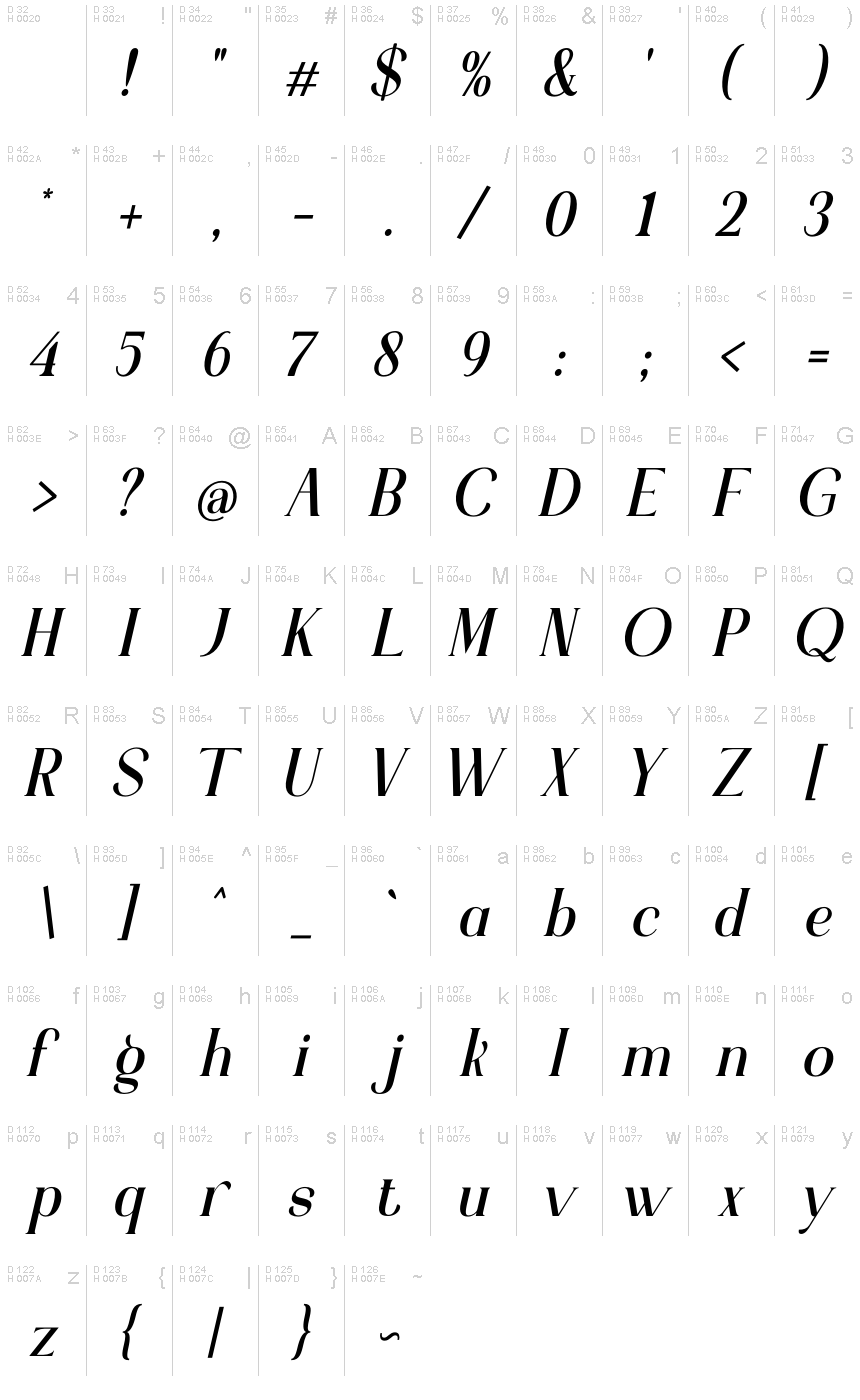
Shortly Cometrue DEMO i
Shortly Cometrue Italic, a masterpiece crafted by the talented Makashi, stands out in the Shortly Cometrue font family with its elegant serif style and a semi-light weight that exudes a sense of finesse. The semi-condensed width of this typeface offers a contemporary take on traditional serifs, striking an exquisite balance between classic appeal and modern sophistication.
The distinct slant of Shortly Cometrue Italic not only adds dynamism to its appearance but also infuses it with an expressive quality that is both inviting and professional. This juxtaposition makes it incredibly versatile for various creative projects—be it for editorial design, branding, or digital platforms.
The subtle yet impactful character of this font is particularly well-suited for those seeking to convey messages with clarity while retaining an air of artistry. Whether used in body text or as a feature element in design compositions, Shortly Cometrue Italic promises to lend your projects a touch of understated elegance combined with functional charm.